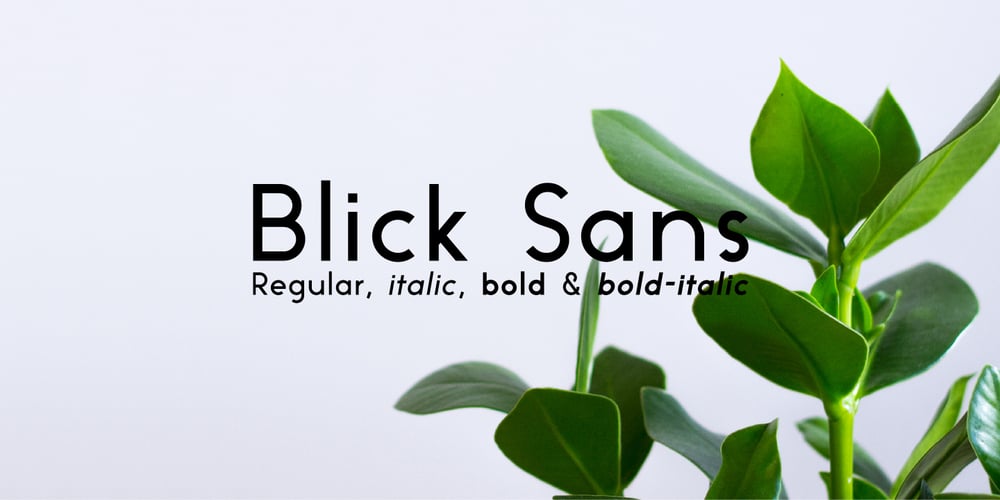
Blick Sans Font Family was designed by Matthew Blick and published by Matthew Blick. Blick Sans contains 4 styles and family package options. Blick Sans is a font that offers simplicity, without compromising aesthetics. It is contemporary, clean, and conveys a friendly tone to headings and body copy.